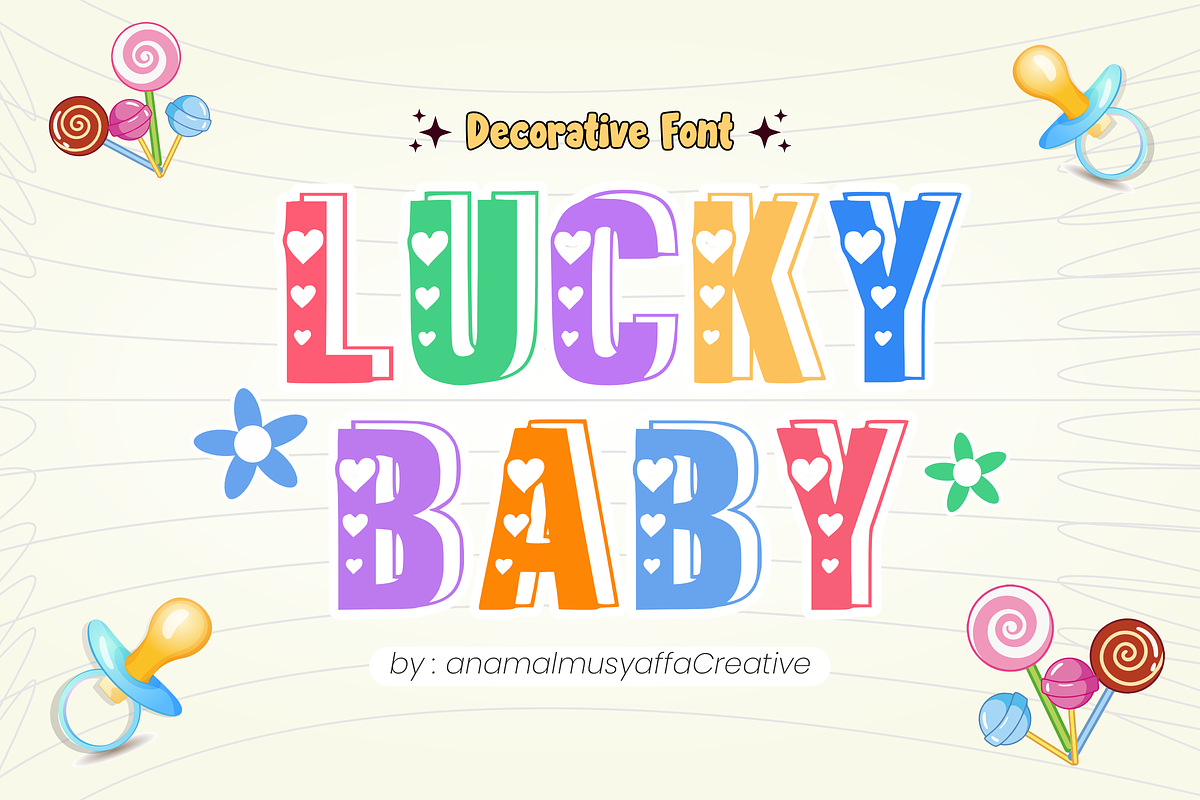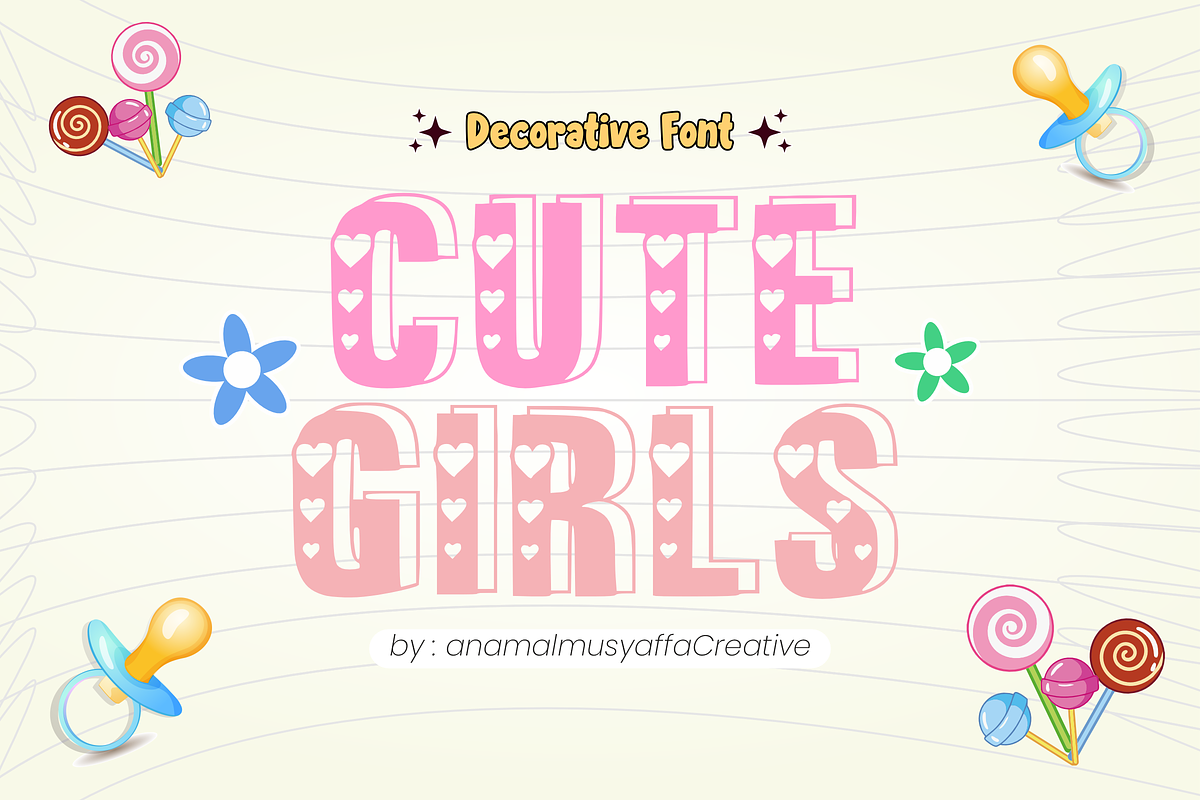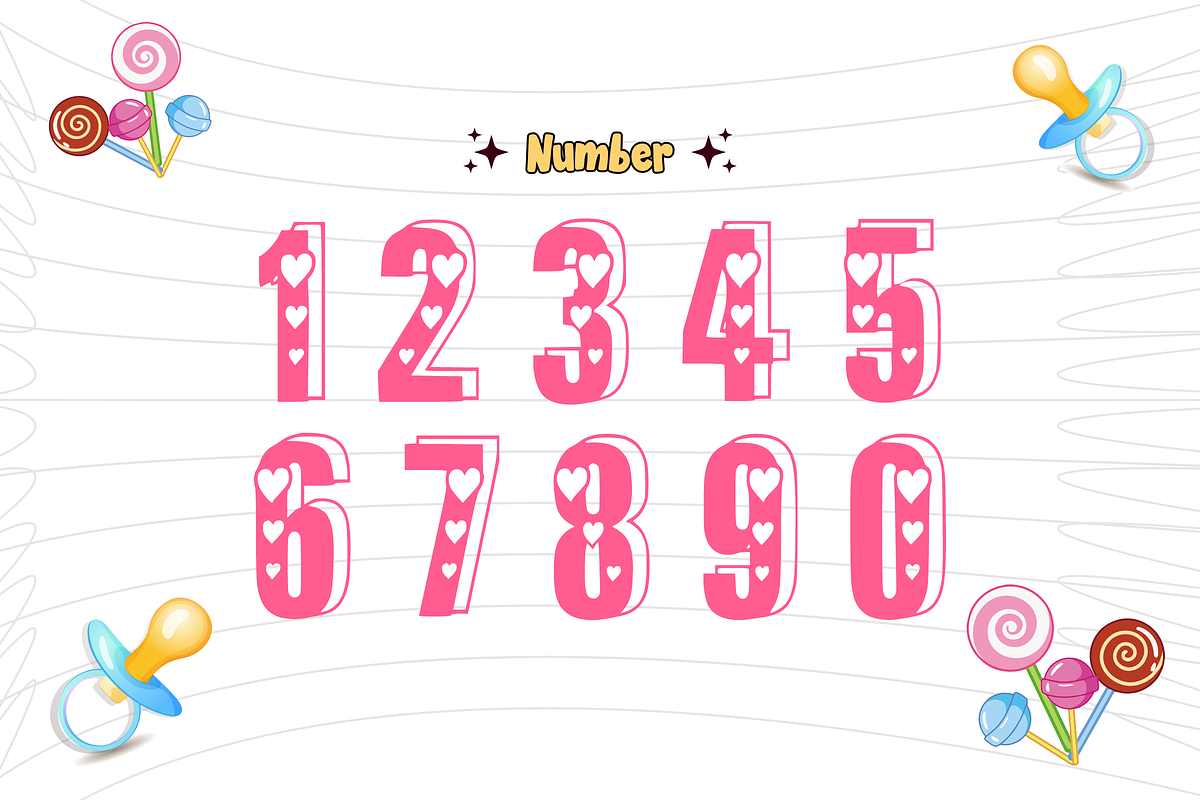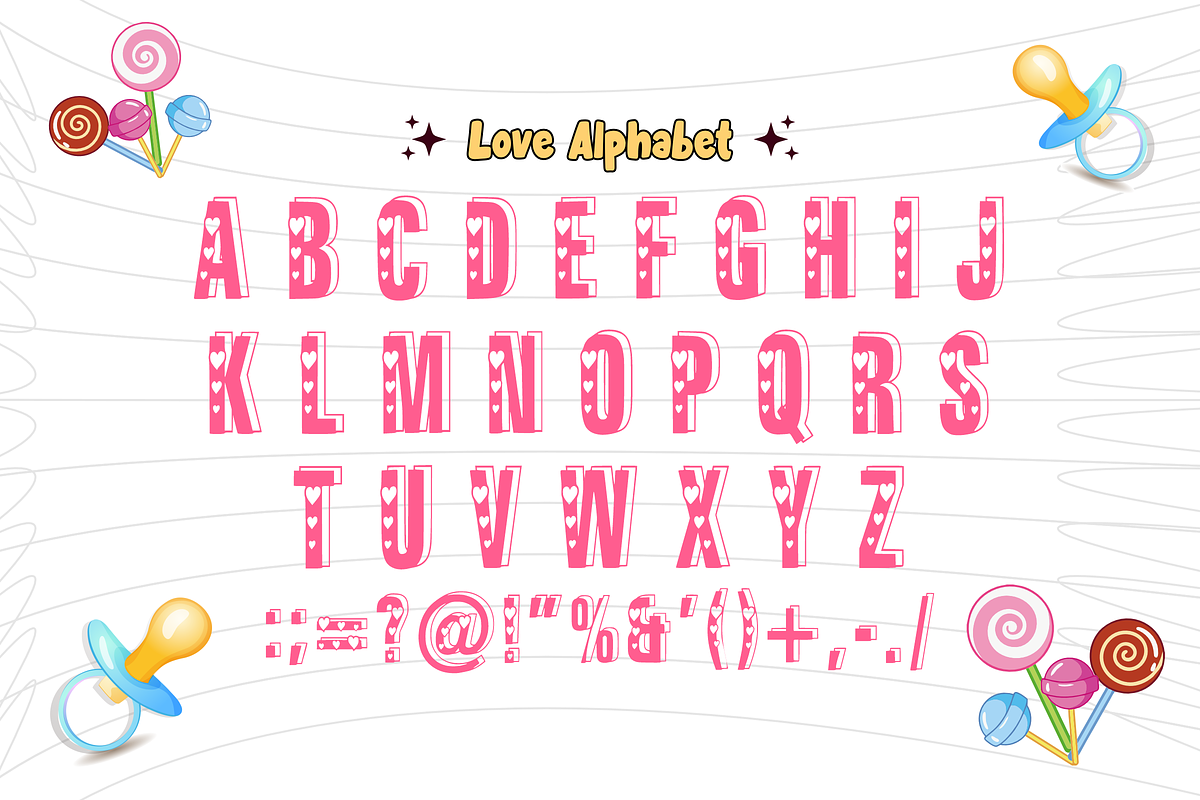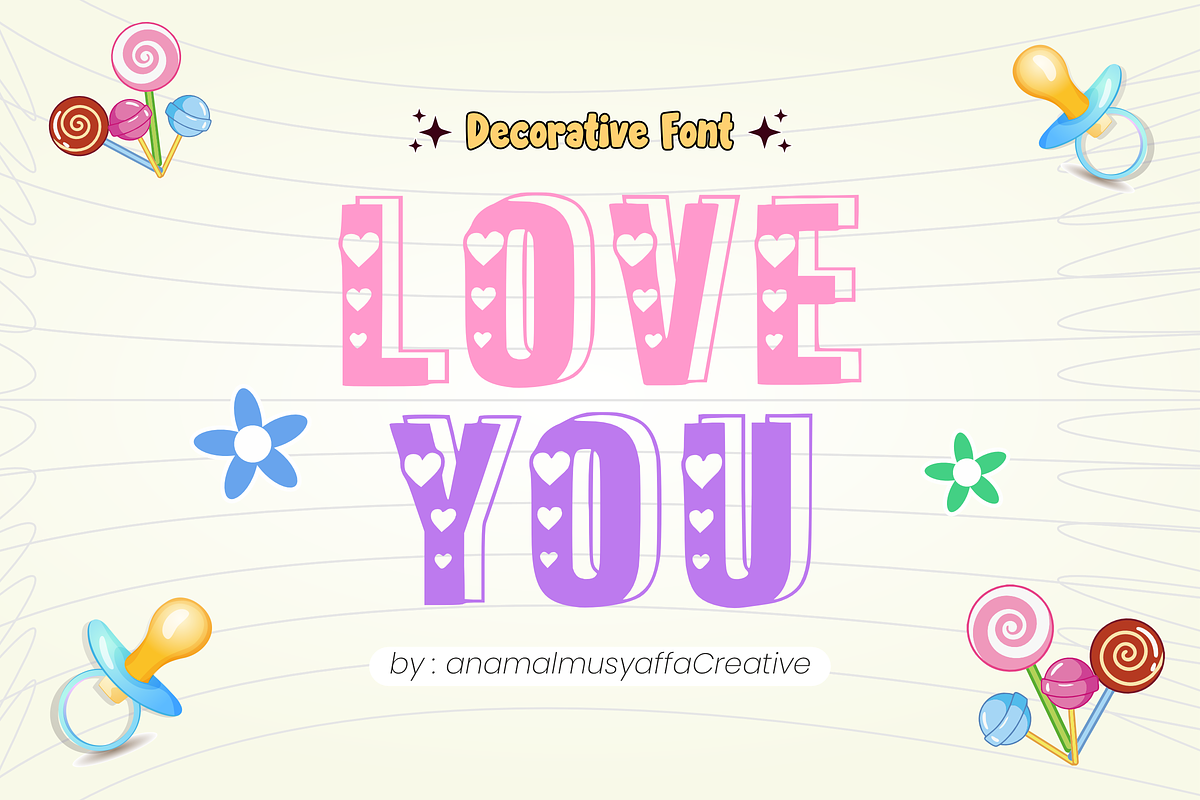
Lucky Baby - Decorative Font Types
Lucky Baby - Adorable Heart Decorative Display Font 👶❤️✨
Product Description: Add a touch of luck and a lot of love to your designs with Lucky Baby! 🍀💖 This charming decorative font features bold, serif-style letters uniquely adorned with sweet heart cutouts inside. It is perfectly crafted to bring a playful, joyful, and heartwarming vibe to any creative project.
Whether you’re designing for a new arrival, a birthday celebration, or cute merchandise, Lucky Baby makes every word feel like a warm hug. It’s bold, easy to read, and full of personality! 🧸🎀
Uppercase Letters – Bold and blocky with adorable heart details 🔠
Numbers – Matching decorative digits for ages and dates 🔢
Simple Symbols – Essential punctuation for your sweet designs ❗❓
✨ Baby Shower Invitations & Announcements
✨ Nursery Wall Art & Room Decor
✨ Kids’ Birthday Party Themes & Cards
✨ T-shirt Designs, Onesies, & Children’s Apparel
✨ Sticker Design, Scrapbooking, & DIY Crafts
✨ Branding for Toys, Baby Products, or Bakeries
✨ Social Media Graphics & Cute Quote Art
Spread the joy and make your designs unforgettable with Lucky Baby! 🍭🌟